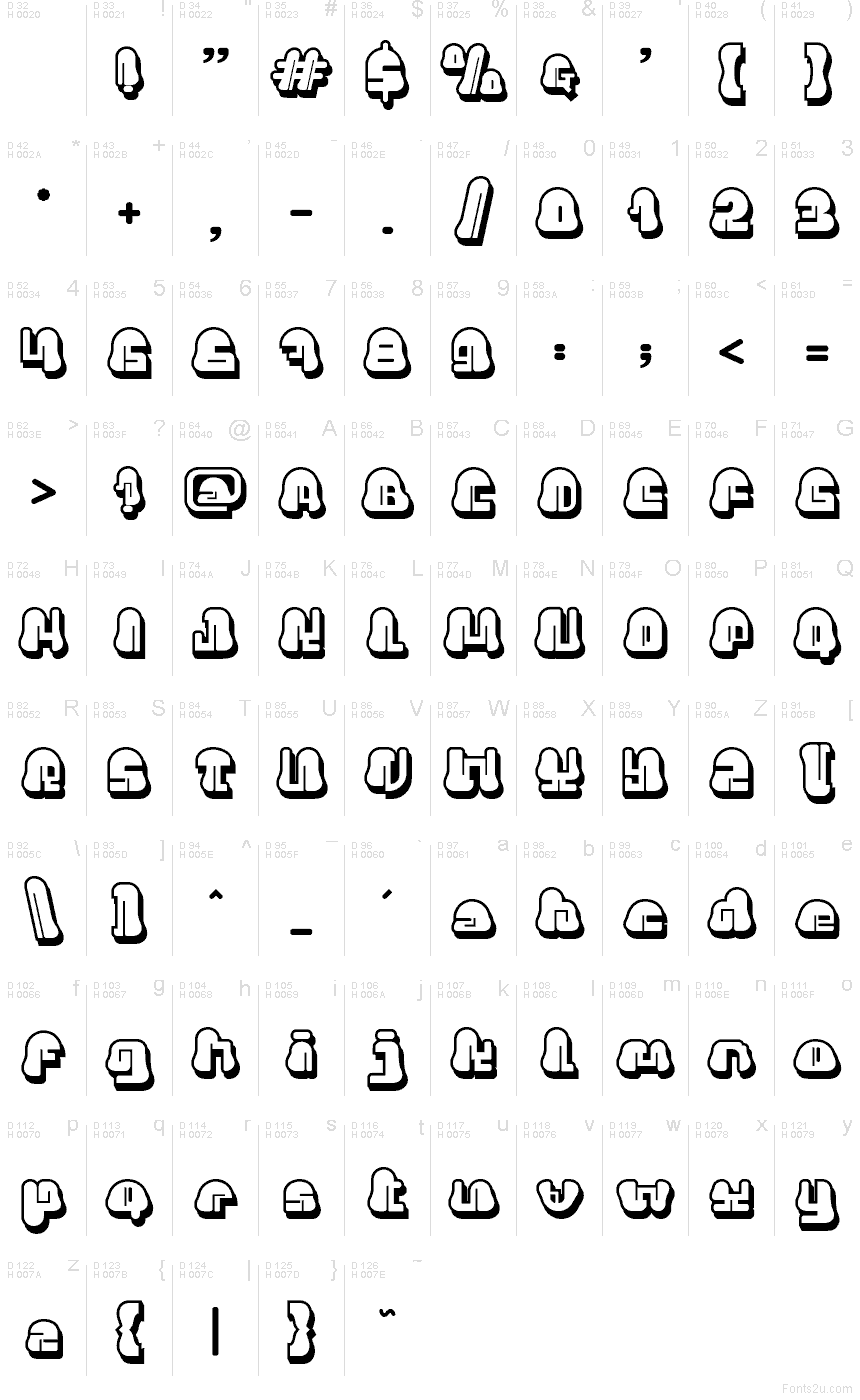
Vibe Tribe One by Putracetol Studio is a free groovy 3D display font with inflated rounded letters, strong outlines, and deep offset shadows. Slim inner slots give the broad forms a mechanical snap.
Retro-futurism, pop music, and arcade culture suit its mix of soft curves and hard-edged cutouts, making it especially useful for concert posters and game graphics. Toy and confectionery packaging can turn the chunky profile into a playful product mark, and event merchandise can draw on the same buoyant shapes. For magazine covers and feature openers, the repeated notches and shadow bands can extend into borders or page patterns, so the type becomes part of the editorial artwork.